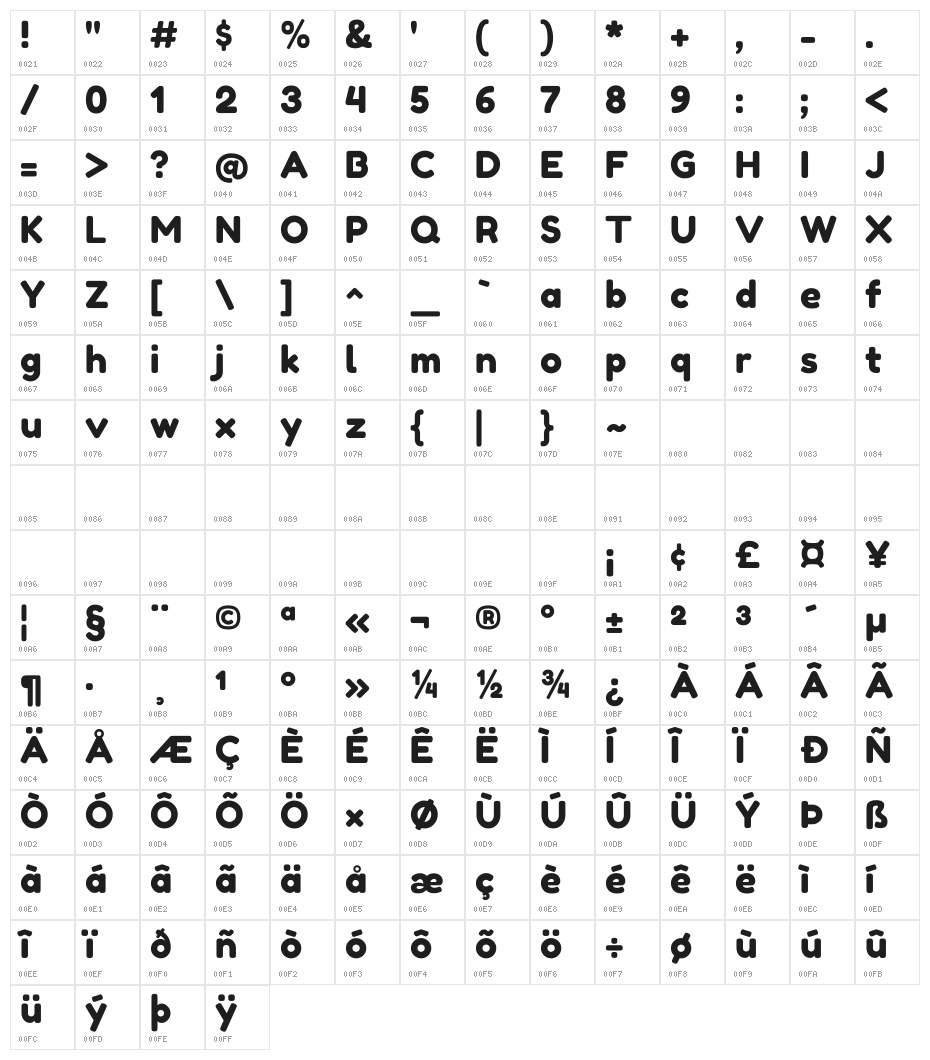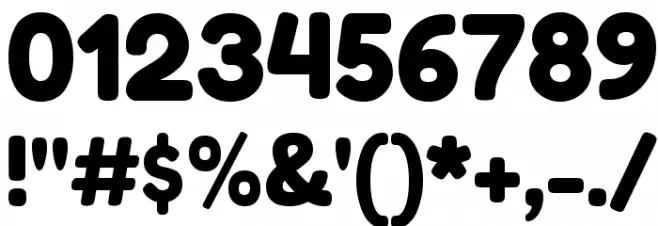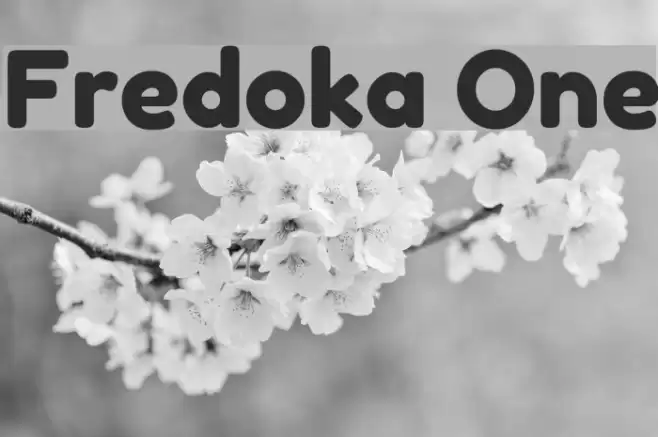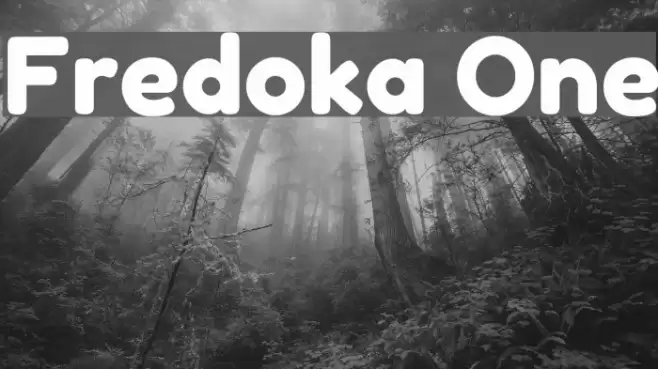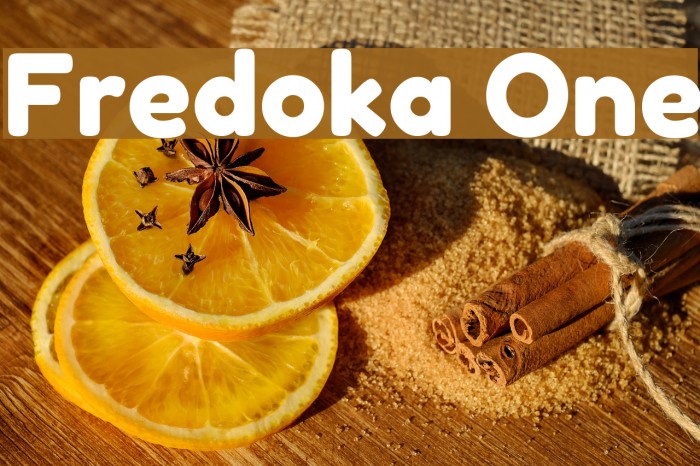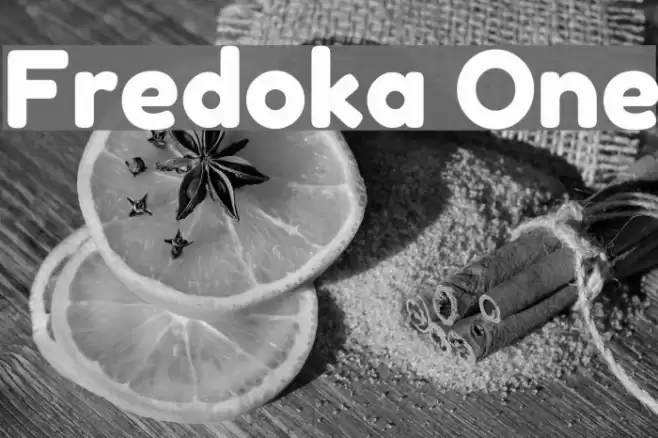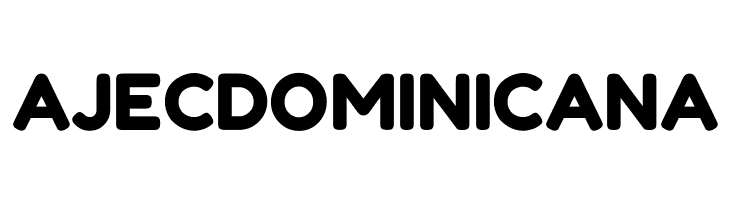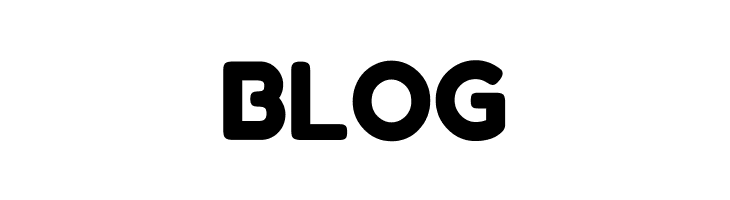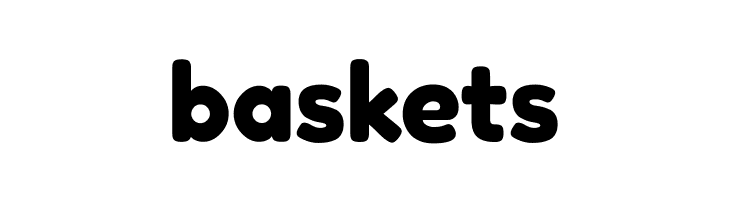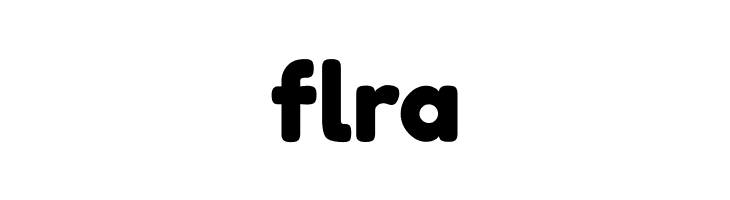
Fredoka One Font
Fredoka One Description
This font features a playful and rounded design, characterized by its bold and friendly appearance. The letters are thick and uniform, with a consistent stroke width that gives it a cohesive look. The rounded edges and smooth curves contribute to its approachable and modern feel, making it suitable for a variety of creative projects. The numerals and special characters maintain the same playful style, ensuring a harmonious visual experience across different types of content.
| Proposed Projects | Ideal for children's books, playful branding, posters, and social media graphics. |